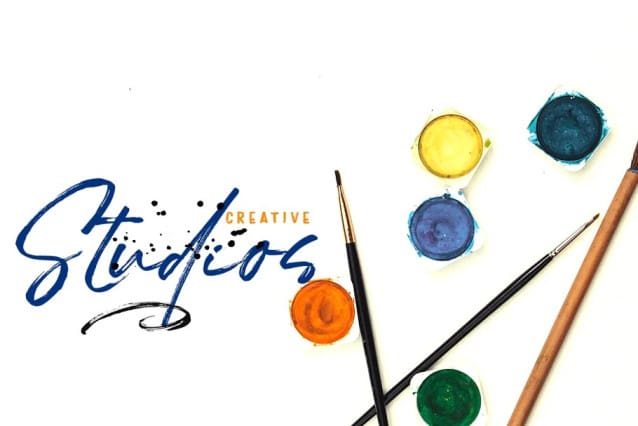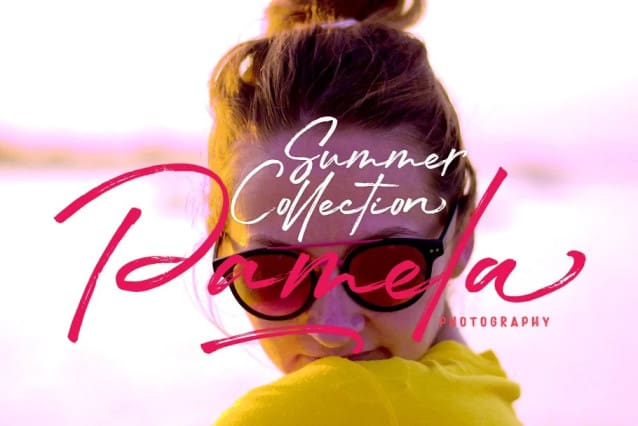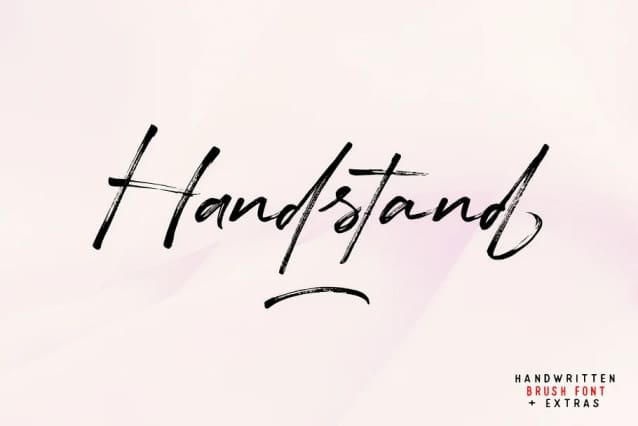
Handstand Brush Font
Handstand Brush Font is a very interesting new brush font. This font family is perfect for branding projects, logos, product packaging, posters, invitations, greeting cards, news, blogs, and more.
The Handstand offers OpenType features, several ligatures and swashes, initial and terminal letters, and international support for most Western languages.